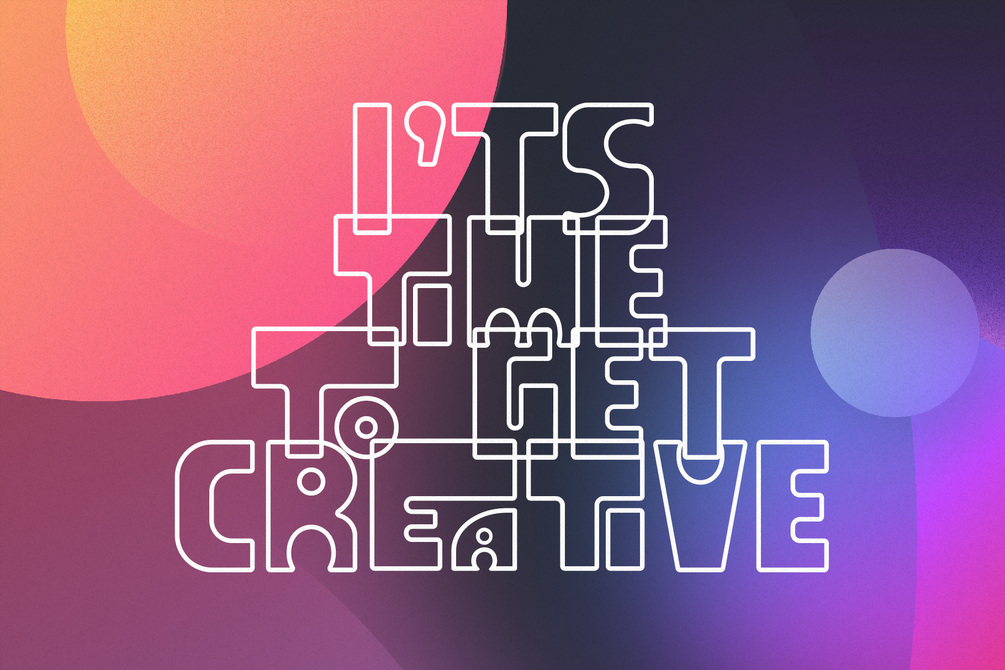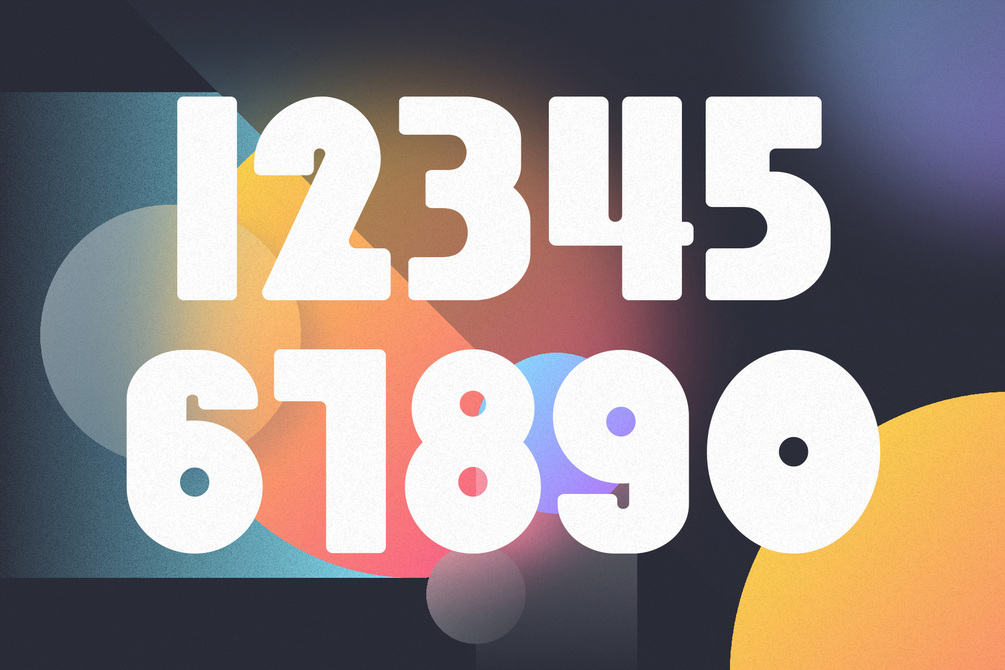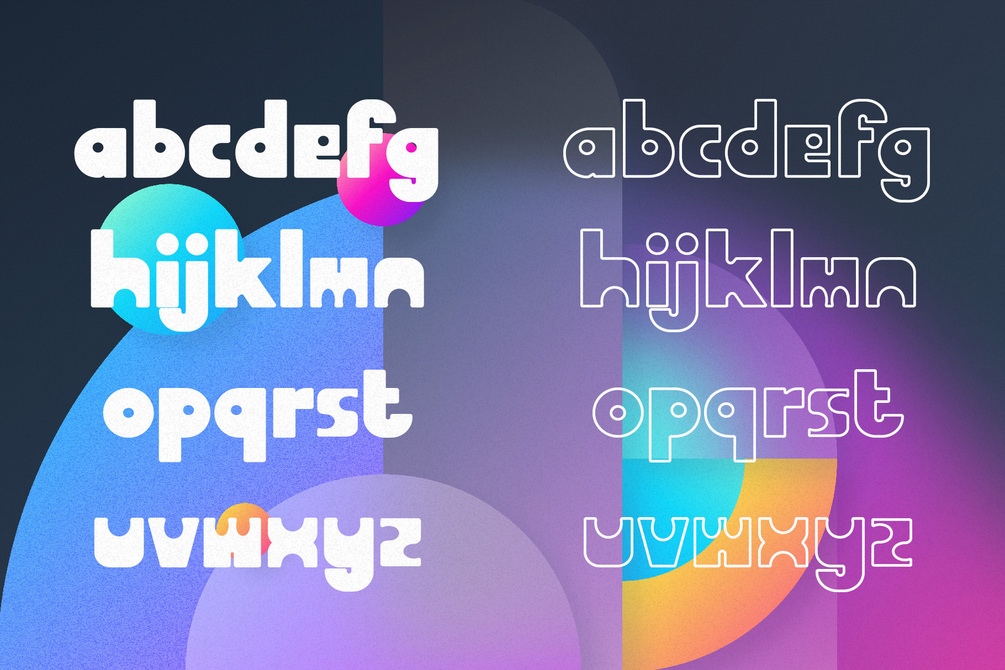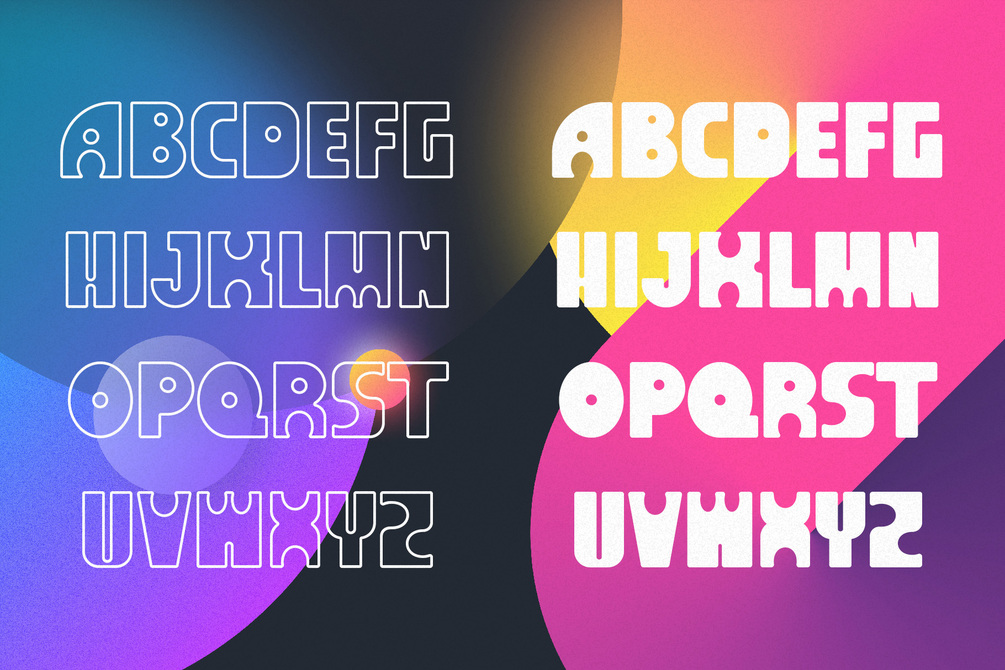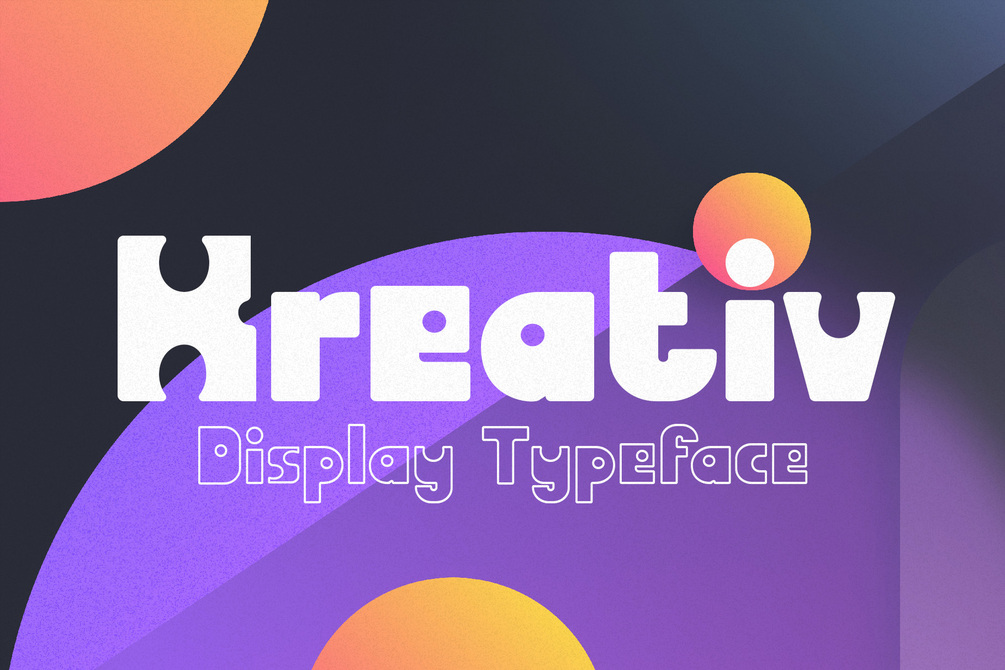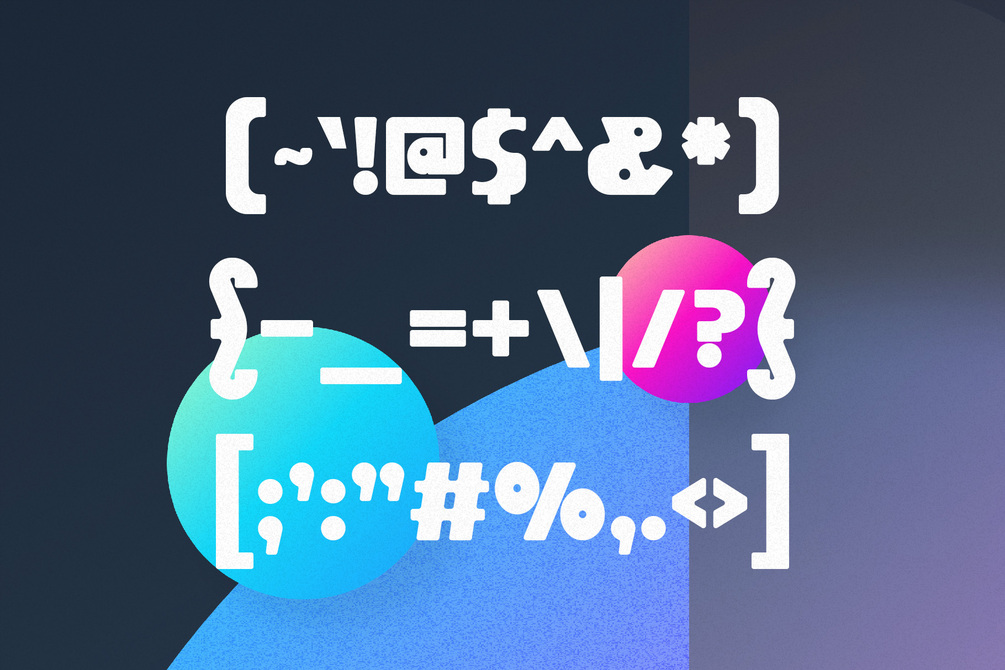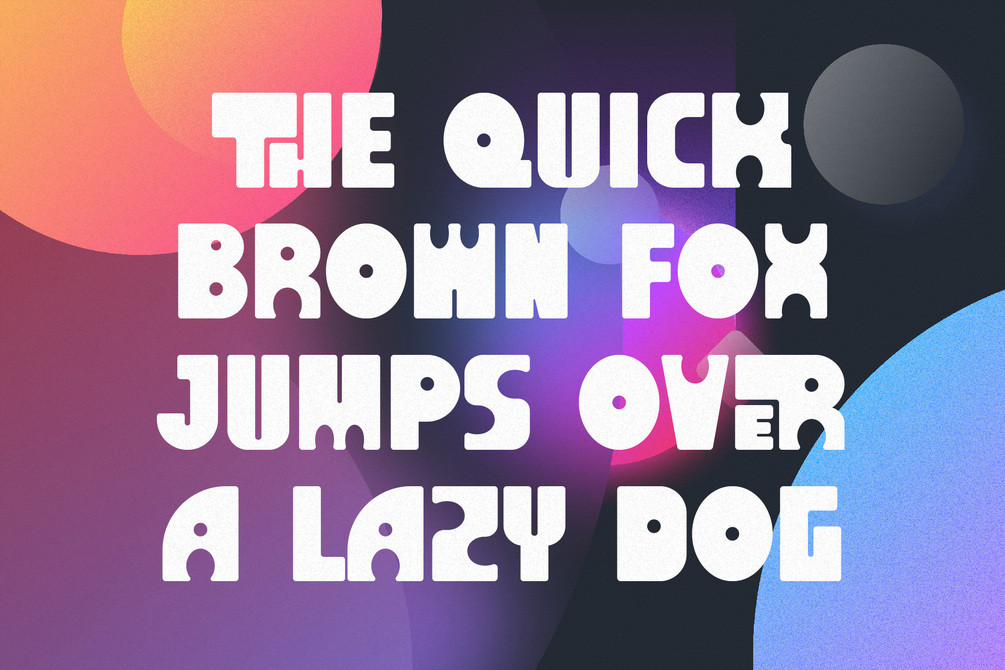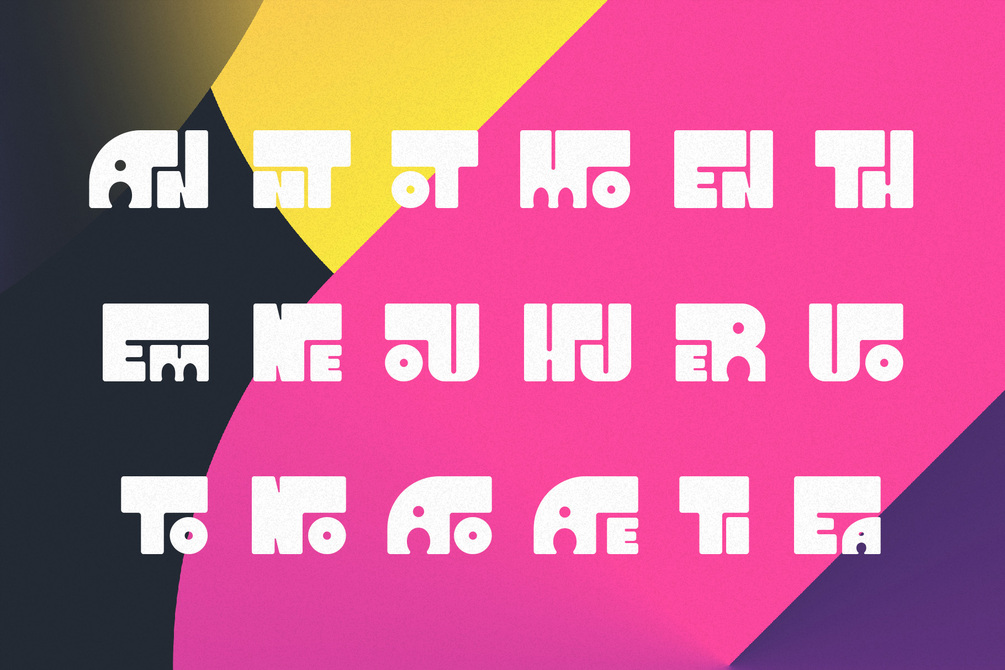
Kreativ - Display Typeface
Kreativ is fun and quirky typeface that's perfect for posters, events, headlines, illustrations, printables, t-shirts, you name it. It's very versatile and fun to use thanks to its beautiful ligatures. Elevate your designs today with Kreativ!